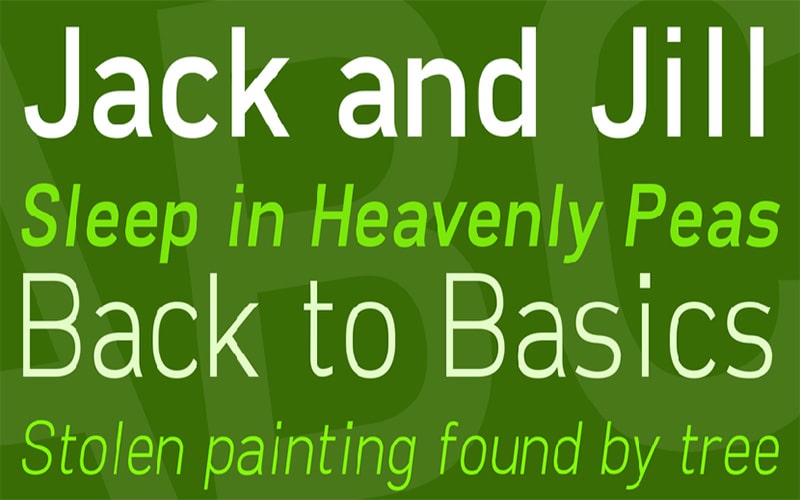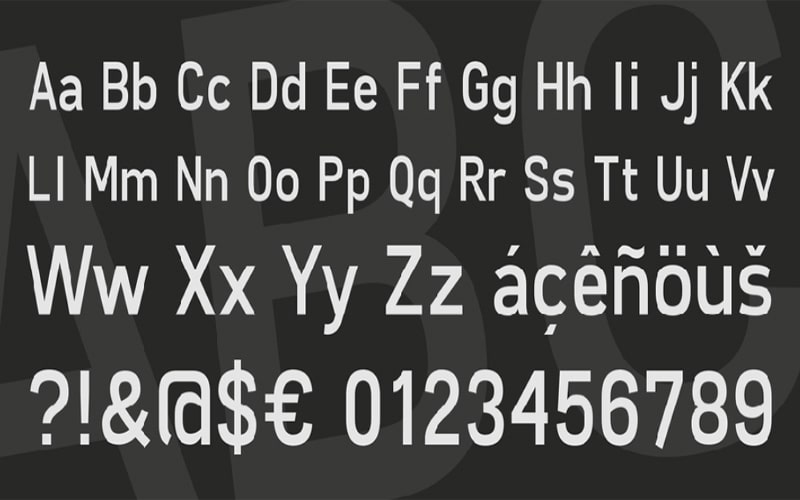
Freeroad Font Family is a Basic, Sans serif typeface. Grand Chaos Productions is known as the graphic designer who took charge to design this font.
For the first time, it was published in 2012. After a few modifications, Freeroad Font Family was updated on April 16, 2016. The subfamily of this unique typeface is regular.
An Arial headline font contains eight unique styles for windows that make this outstanding font familiar all over the world.
Styles are Freeroad Regular, Freeroad Italic, Freeroad Light Regular, Freeroad Light Italic, Freeroad Bold, Freeroad Bold Italic, Freeroad Black, and Freeroad Black Italic.
This stylish features clean font containing 225 alternate defined characters for each style and more than 100 sample glyphs with 2048 units per EM.
This rounded texture font has a fat and elegant touch that supports multiple international languages. It has come with Basic Latin Unicode characters.
This multi-weight stunning font is available in all lowercase letters, uppercase letters, numbers, and punctuation marks. Let’s take a look at its beautiful texture.